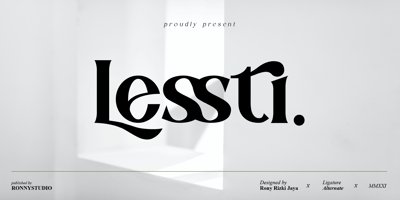
Lessti
Lessti font
Lessti Font Family was designed by Rony Rizki Jaya and published by Ronny Studio. Lessti contains 3 styles and family package options. Lessti is an elegant and vintage style serif font. This font is impressive and features elegant and professionally shaped fonts, and as a result, it will easily match a variety of creations that require a different touch.Lessti Features : Uppercase Lowercase Numbers & Punctuation Ligature Alternative Multilingual Support Simple installation All of features and special characters of this font are included in one file. So it is easy to accessed by using program or software that support the opentype like Adobe Illustrator, Adobe Photosop, and Adobe Indesign). This font also very easy to use because compatible for all software even for non-opentype supported. Please comment us if you have any questions Thank you and have a nice day.thank you